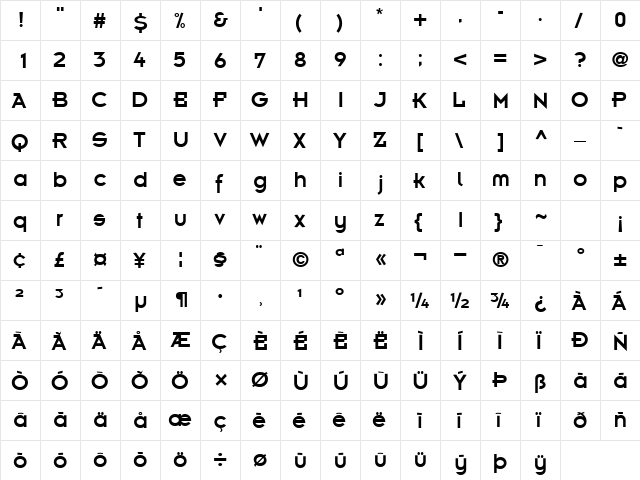
KernelAlternateSSK Regular
Design Context for KernelAlternateSSK Typeface
KernelAlternateSSK is a composed and adaptable typeface that performs quietly and consistently across a wide range of design contexts.